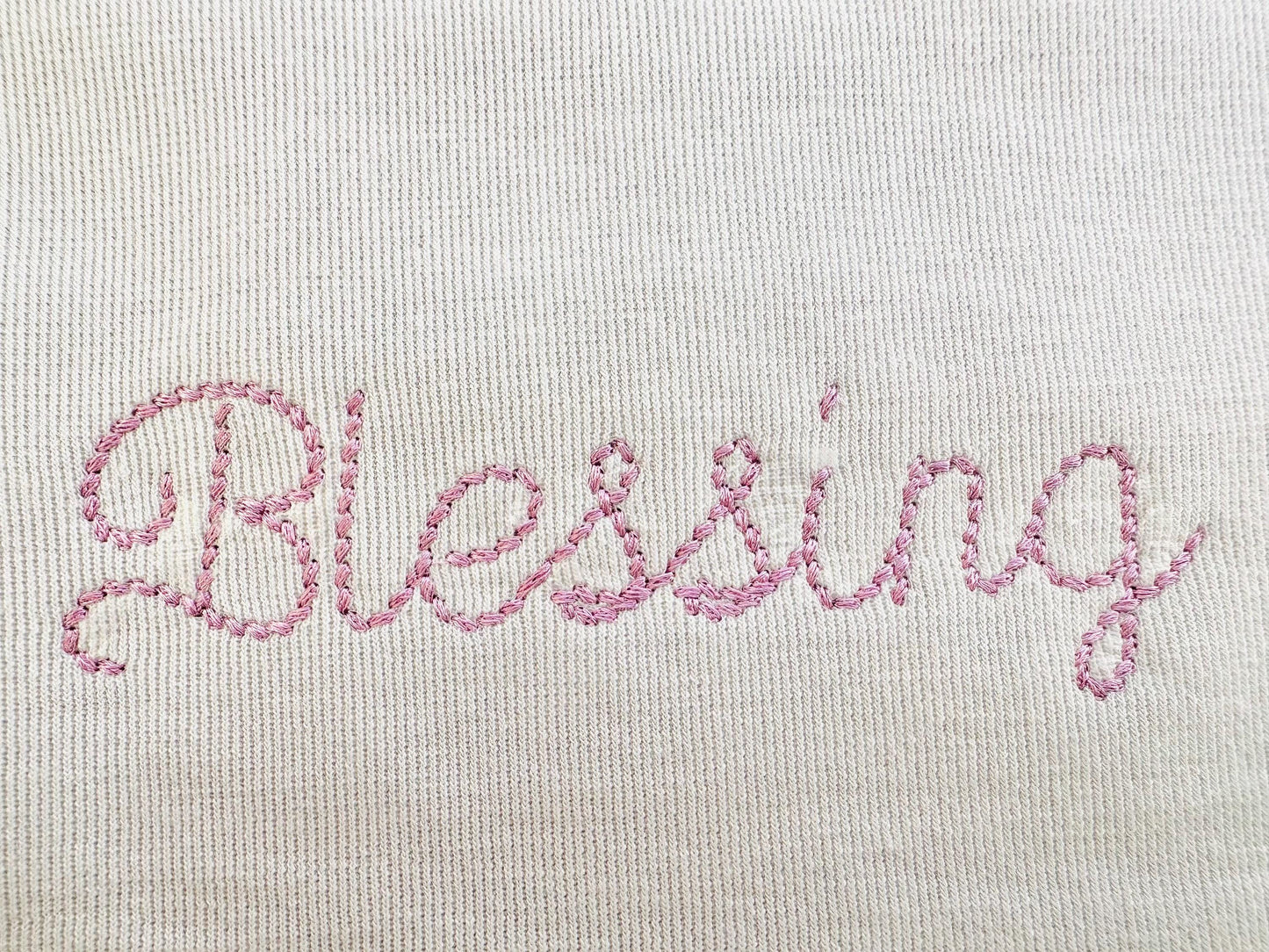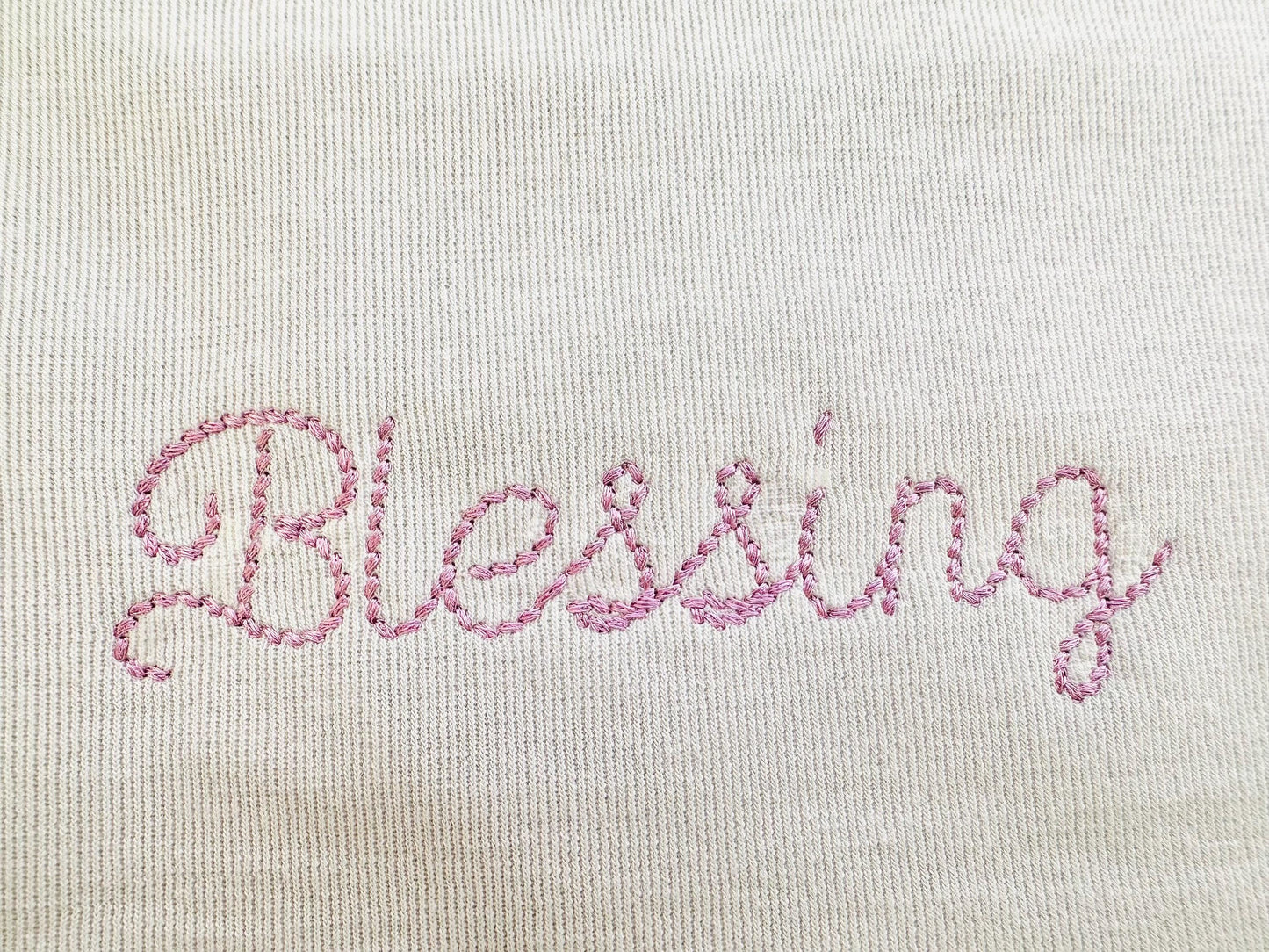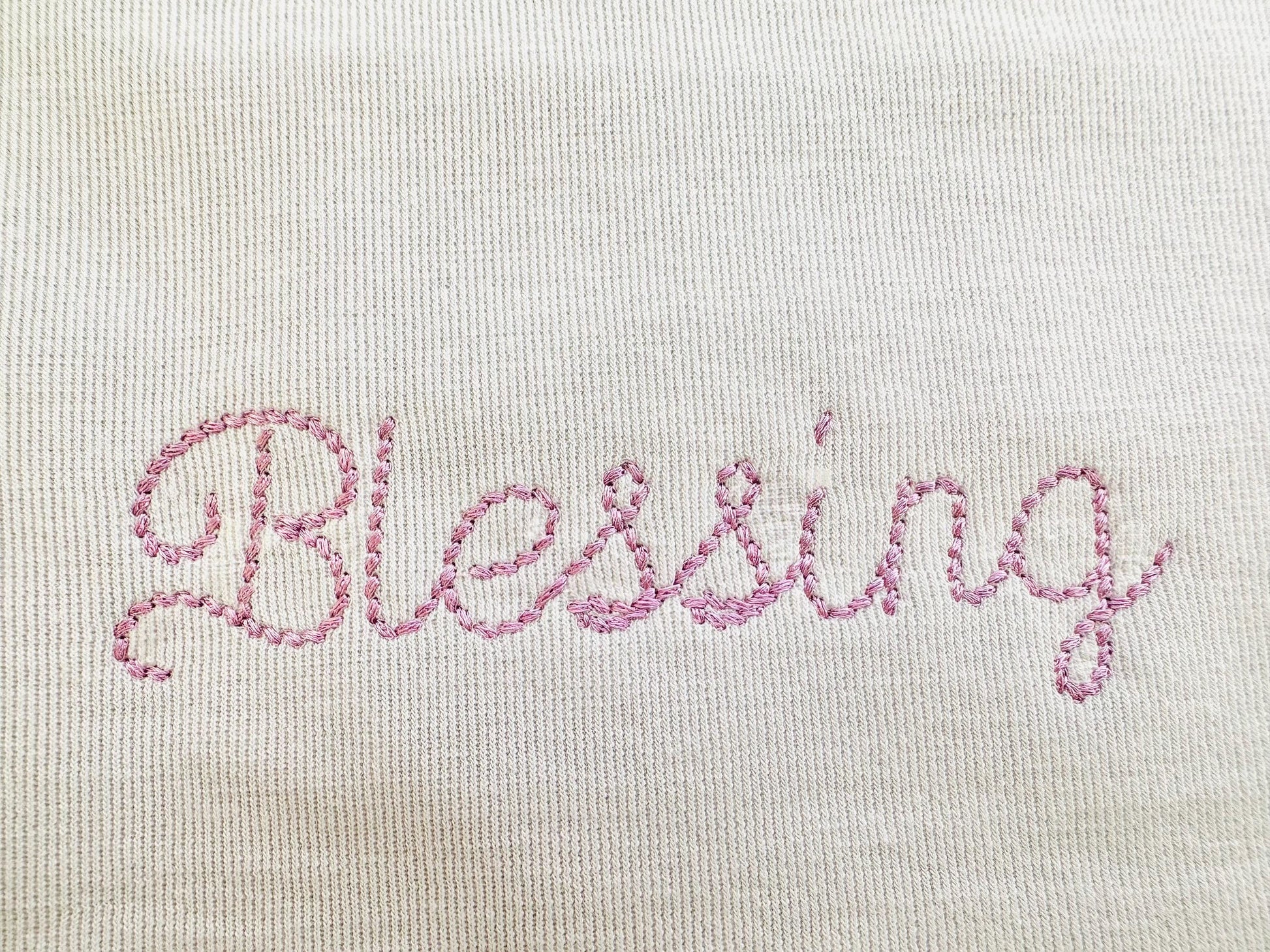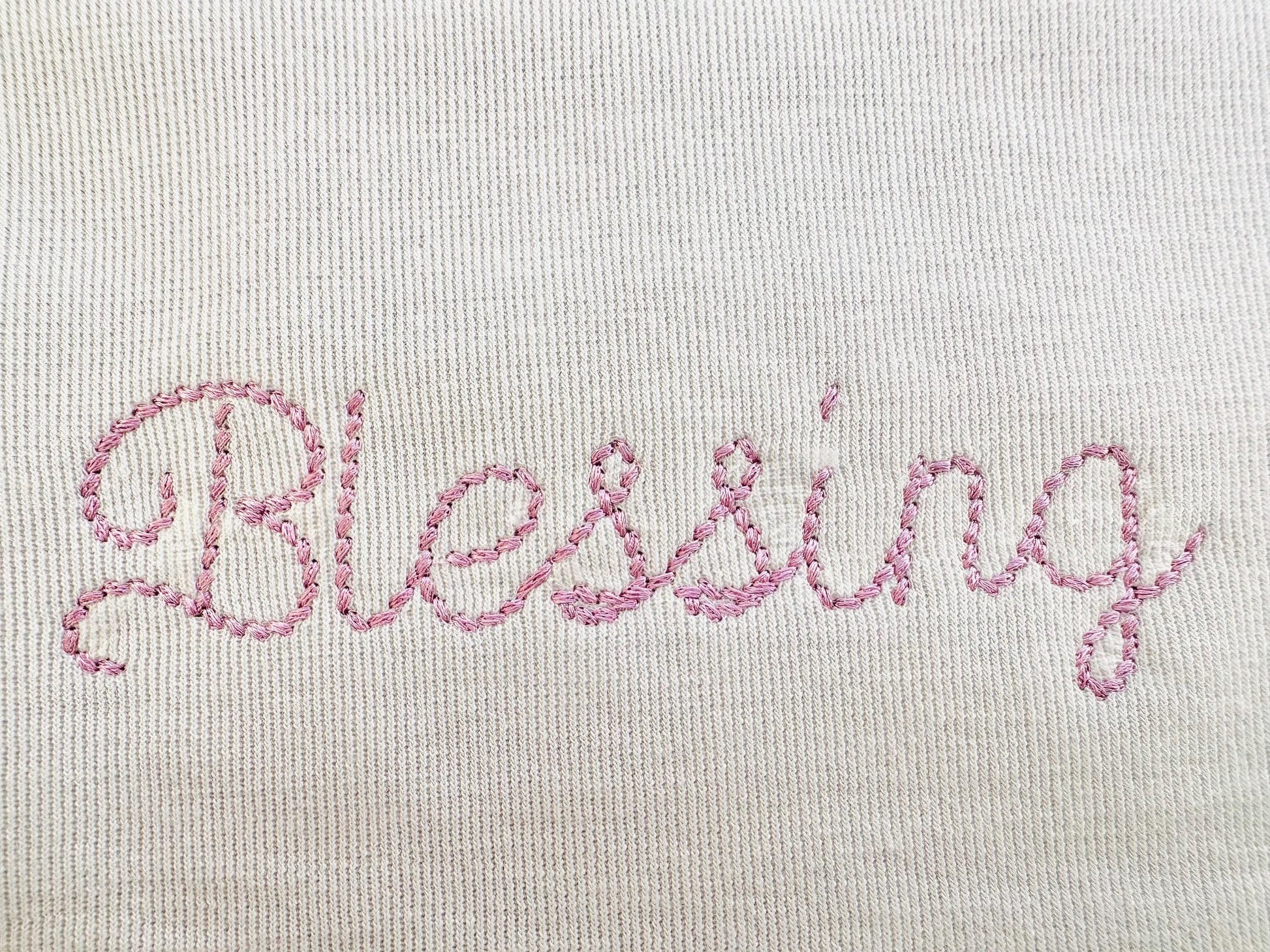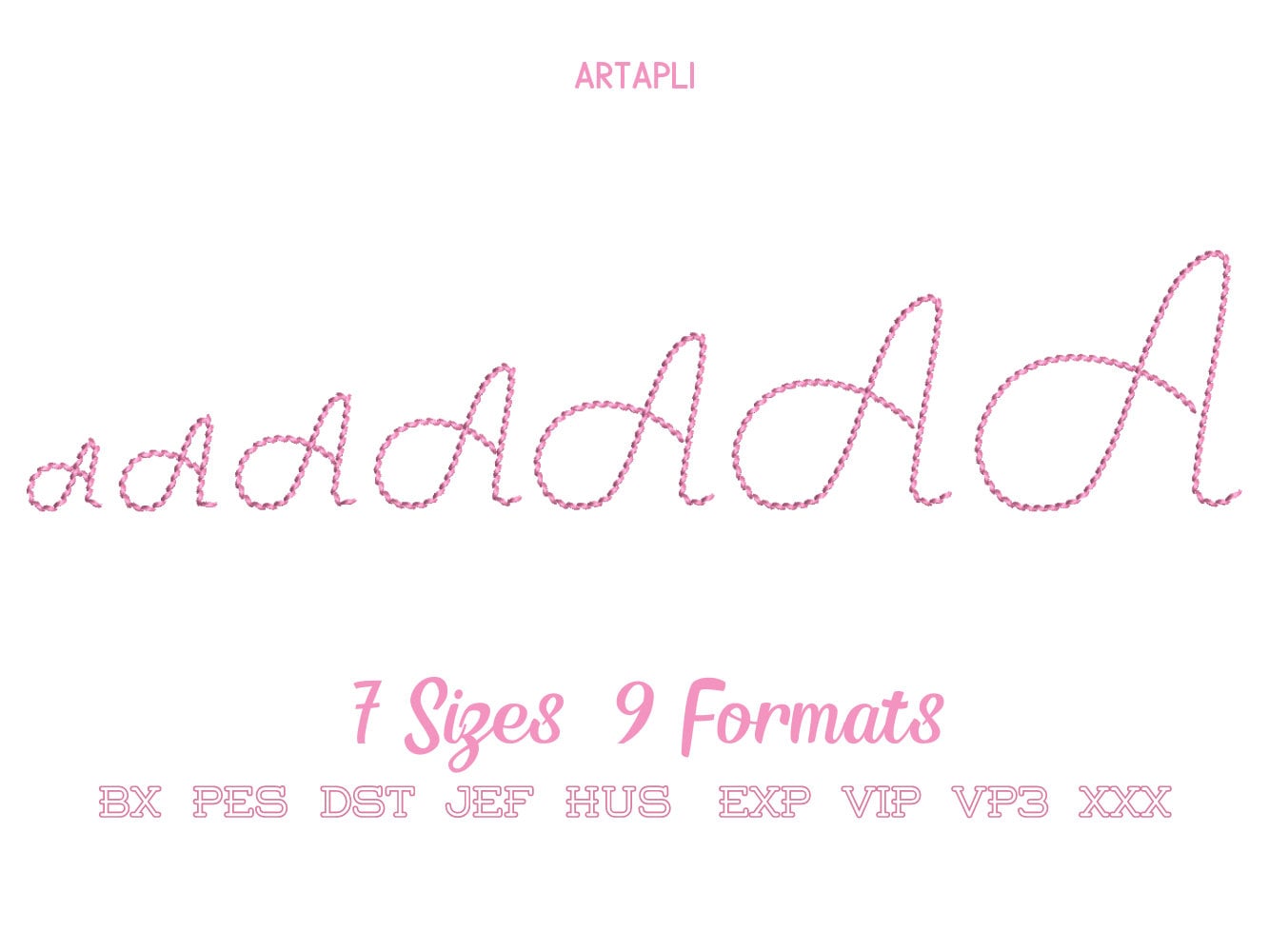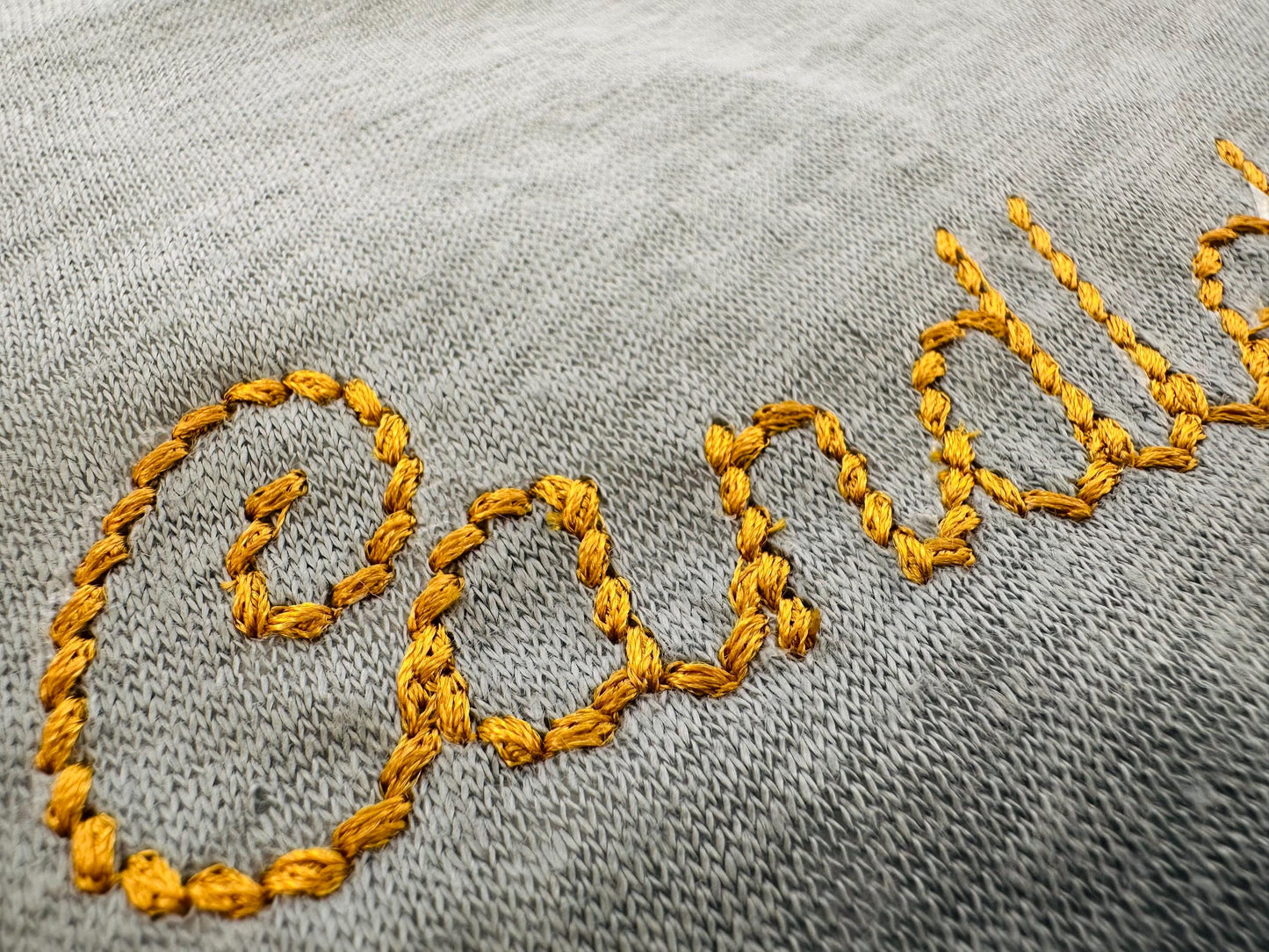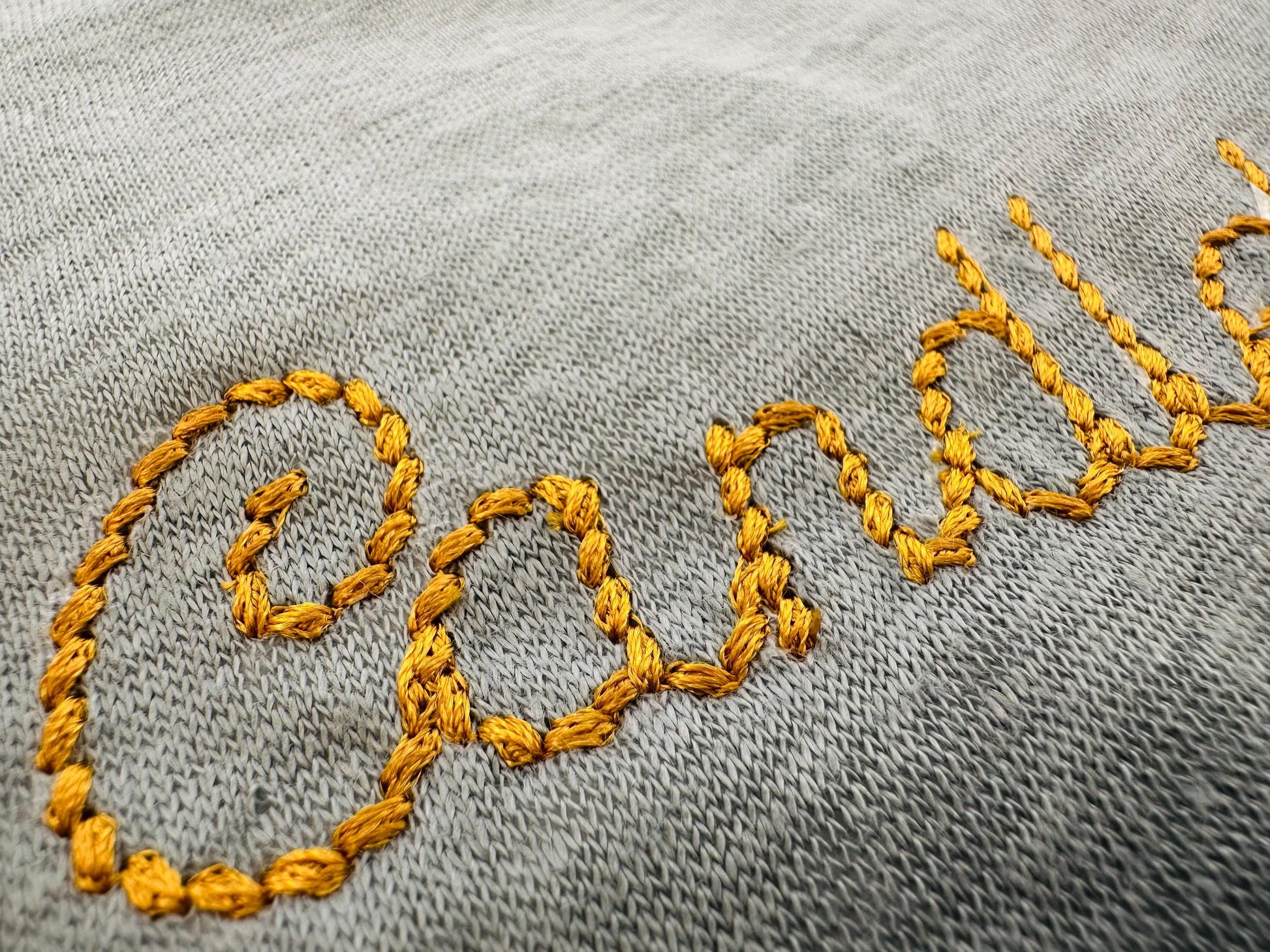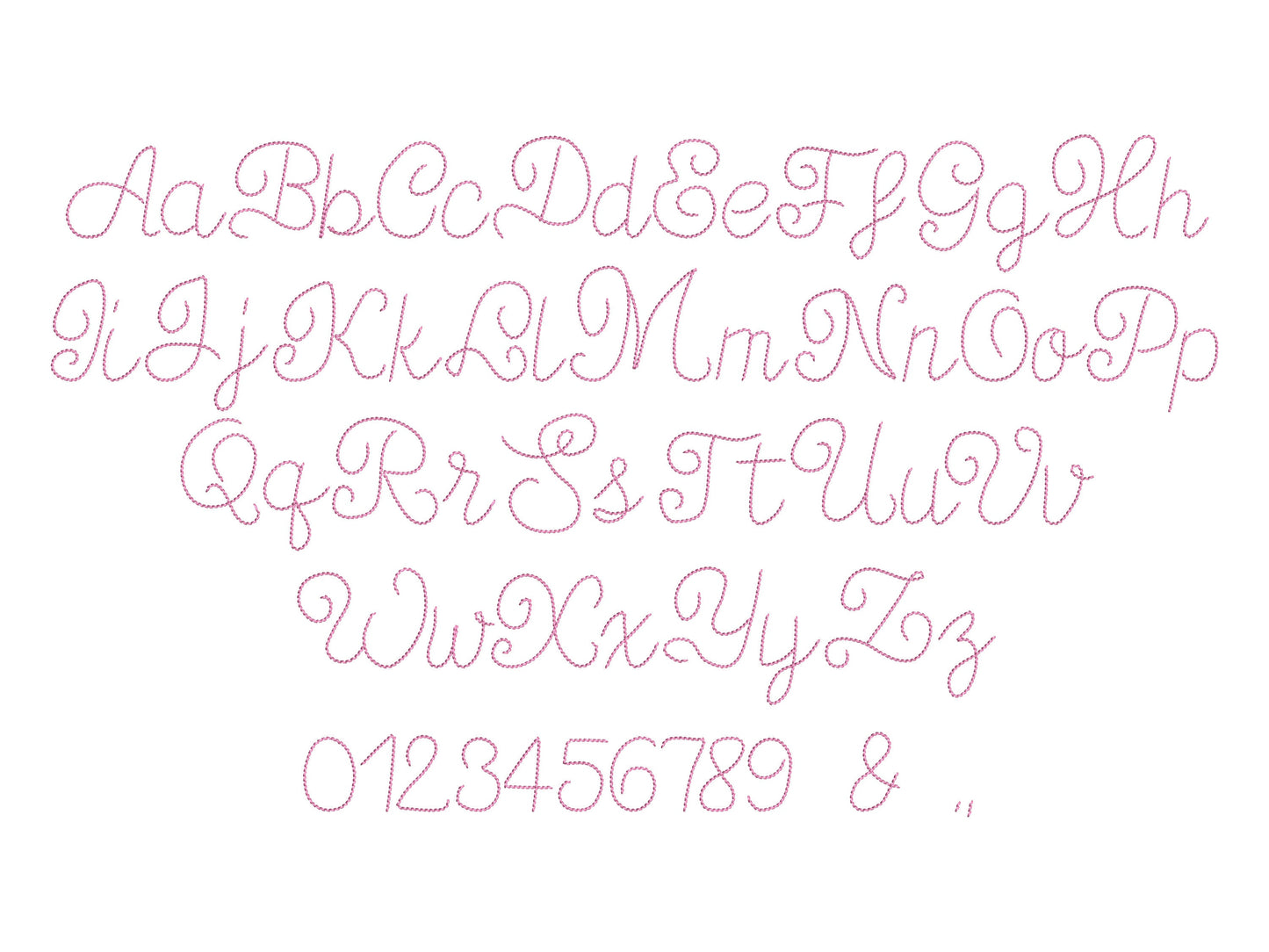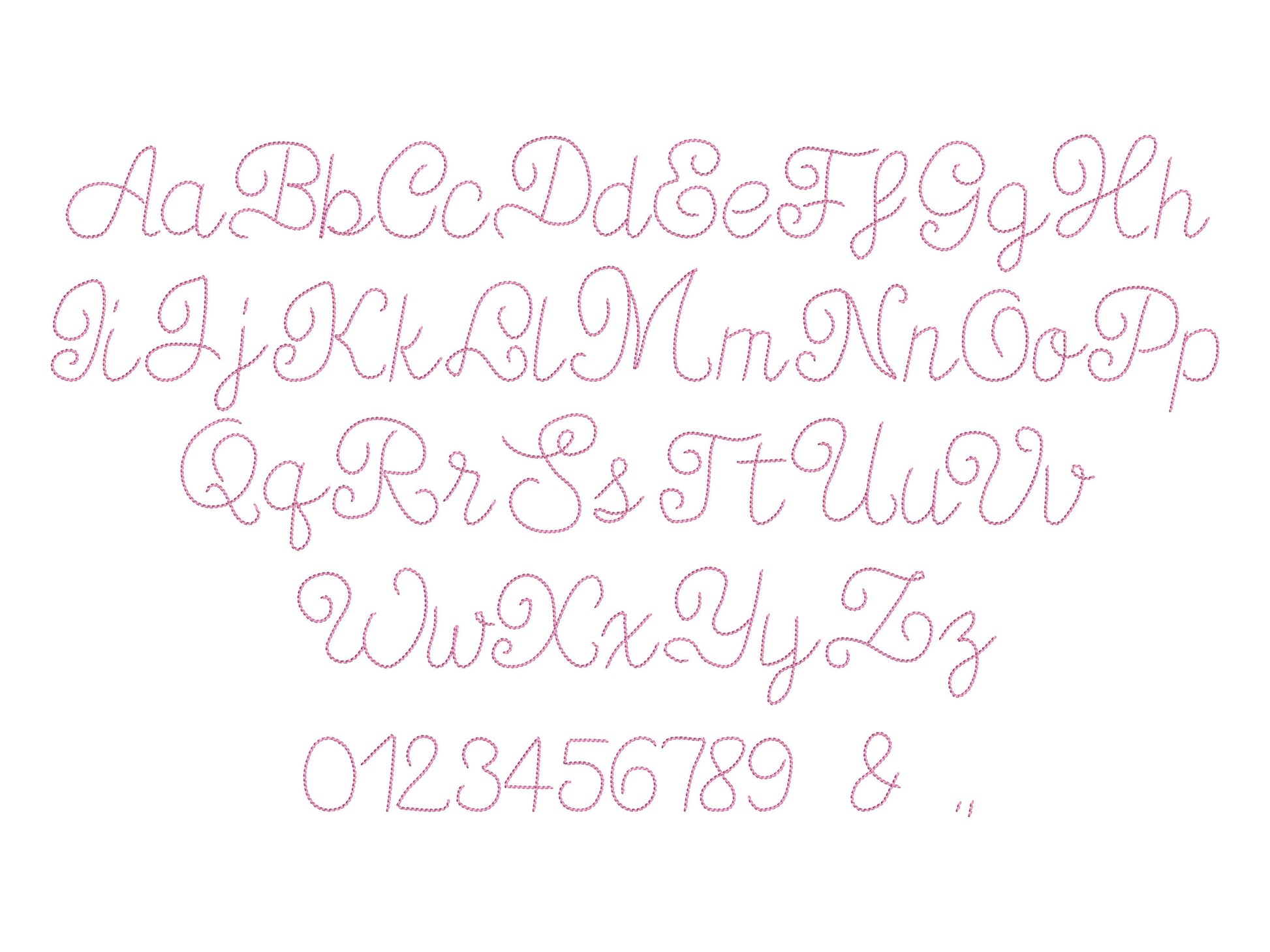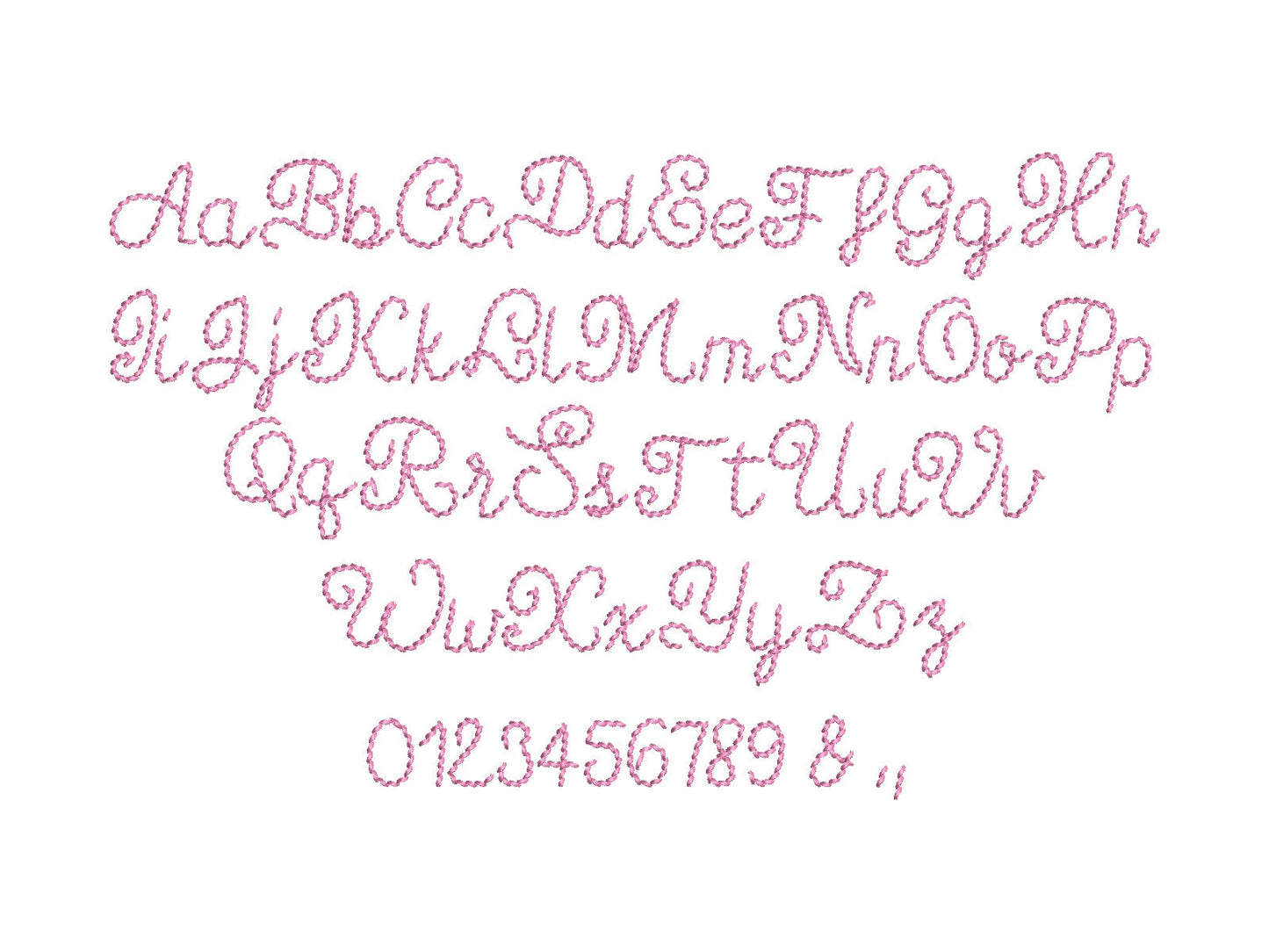
Or click to open the linkA swirly handwritten font with a hand-stitched stem stitch look. Sweet for kids' names, small monograms and sayings.
Uppercase and lowercase letters, numbers 0 to 9 and comma, period and &, in seven sizes: 0.8, 1, 1.3, 1.7, 2, 2.5 and 3 inches.